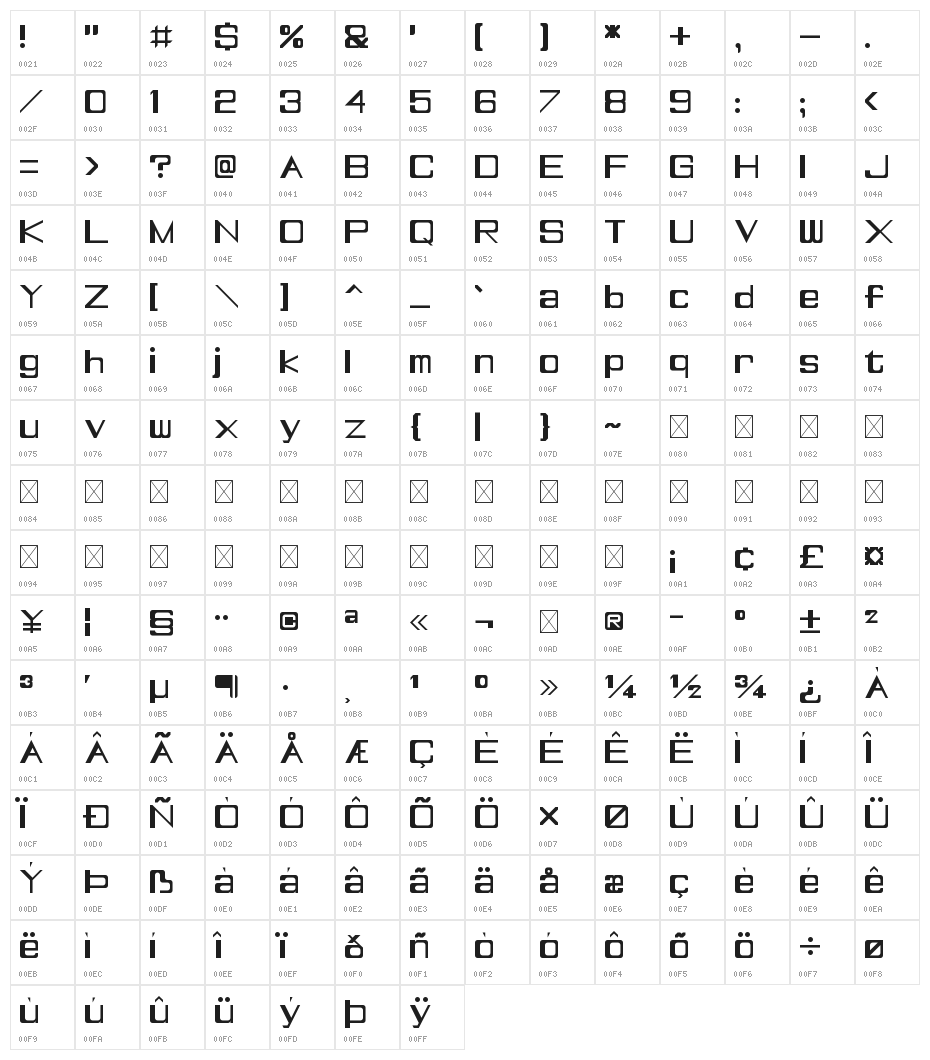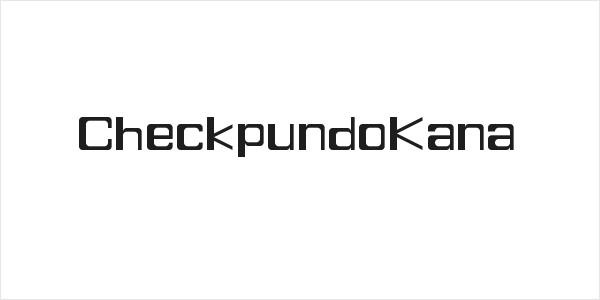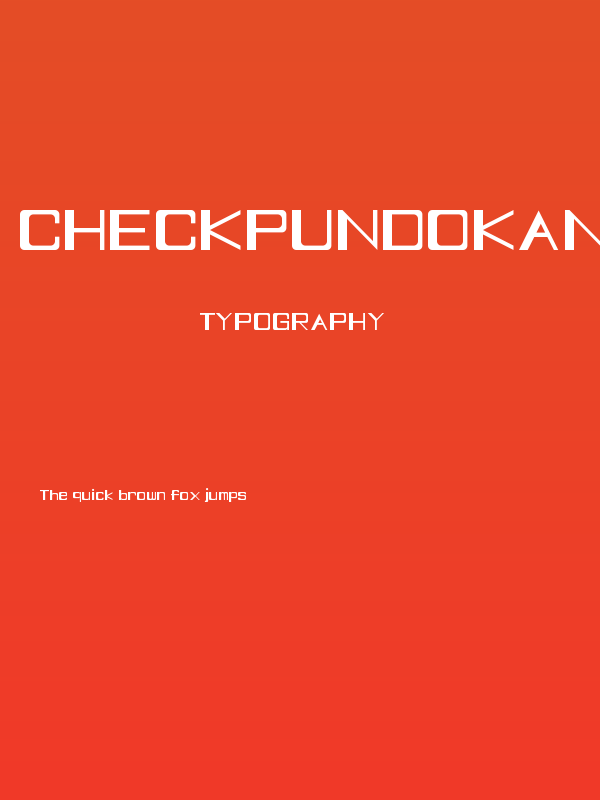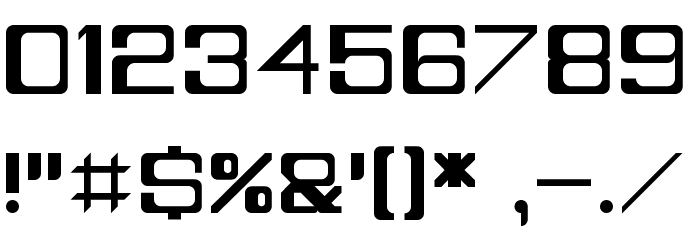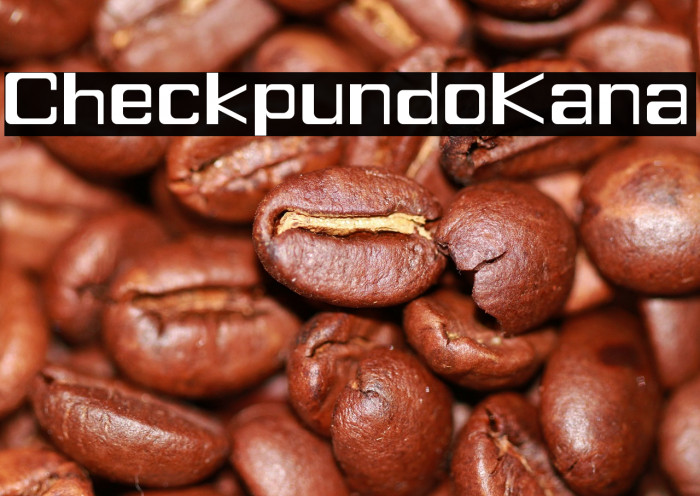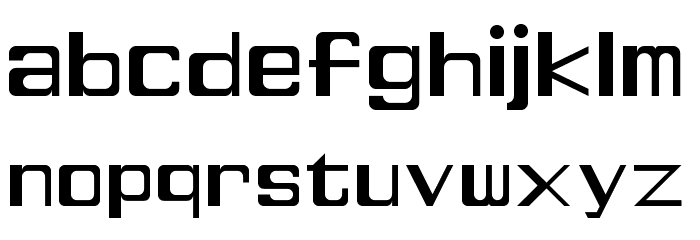
CheckpundoKana Font
CheckpundoKana Description
This typeface presents a modern and geometric aesthetic, characterized by its bold and angular letterforms. The uppercase letters exhibit a strong presence with sharp edges and a slightly condensed structure, while the lowercase letters maintain a consistent style with rounded corners that soften the overall appearance. The numerals are distinct and align well with the alphabet, ensuring readability and uniformity. Special characters are crafted with the same attention to geometric precision, making them seamlessly integrate with the rest of the typeface. The font's design is suitable for creating a futuristic or tech-oriented feel, with its clean lines and structured form.
| Use Case | Headlines, Logos, Digital Interfaces |
| Proposed Projects | Ideal for technology branding, digital interfaces, modern posters, and futuristic-themed designs. |